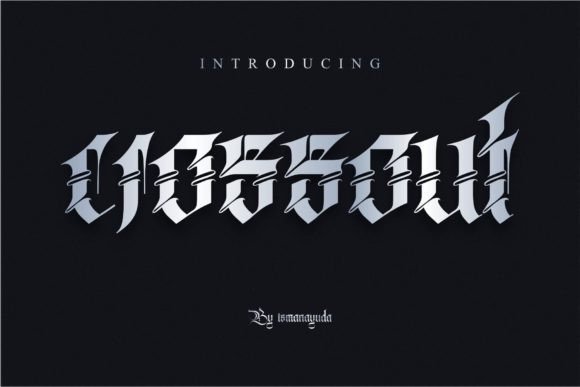
Introducing Crossout Font, the ultimate choice for those seeking the best fonts for metal signs! Crafted by the talented designer ismanayuda, this blackletter font effortlessly combines tradition and modernity, delivering a powerful and captivating visual experience.
With its bold and angular letterforms, Crossout Font exudes a timeless charm that instantly transports you to a bygone era. Each stroke pays homage to the rich history and meticulous craftsmanship of traditional blackletter fonts, evoking a sense of heritage and authenticity that is unmatched.
But don't be fooled by its traditional roots – Crossout Font is also infused with subtle modern touches, ensuring its relevance in a wide range of design applications. Whether you're working on branding, posters, or packaging, this font commands attention and adds a touch of sophistication to any project.
Imagine the impact of Crossout Font on your metal signs! Its striking presence will captivate onlookers, making your signs stand out from the crowd. Each carefully crafted letter speaks volumes, conveying a sense of strength, power, and durability that perfectly complements the industrial nature of metal signage.
But it doesn't stop there. Crossout Font is more than just visually appealing; it elicits an emotional response from viewers. Its unique aesthetic creates a connection with the past, transporting them to a time when craftsmanship and attention to detail were paramount. This emotional bond fosters a sense of trust and authenticity, making your message resonate with your target audience on a deeper level.
Crossout Font is not just a font – it's a statement. It's the perfect blend of tradition and modernity, history and innovation. It's the key to elevating your designs and captivating your audience. So why settle for ordinary when you can embrace the extraordinary?